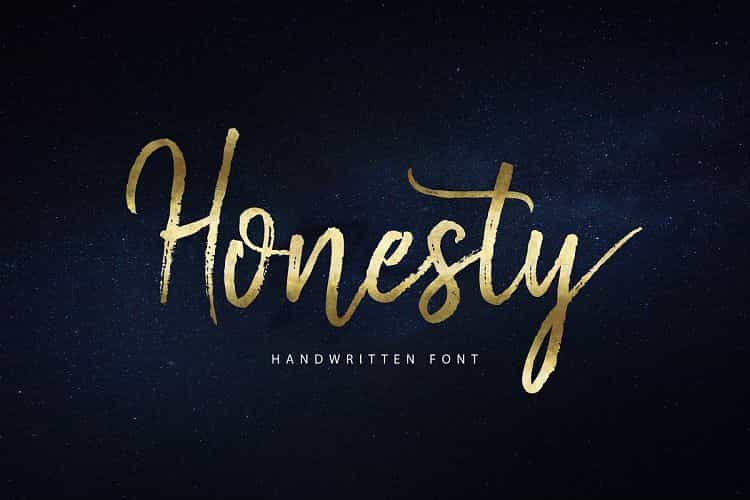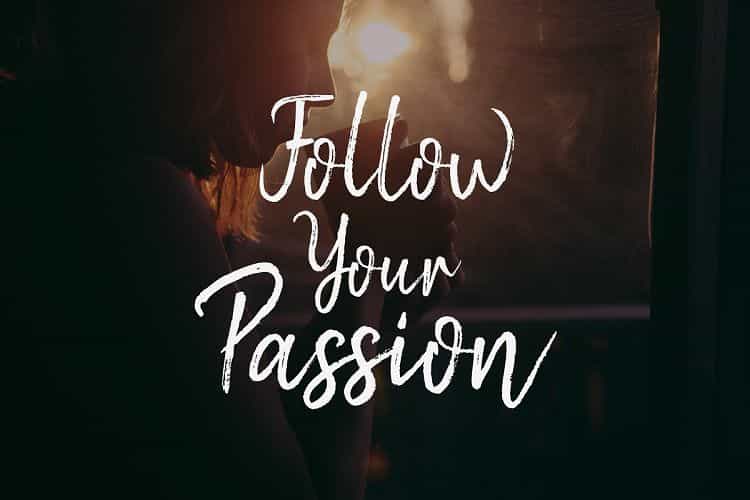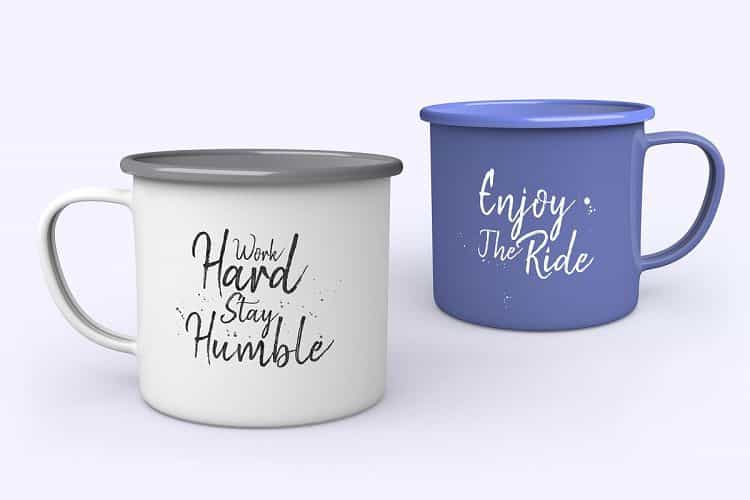
Discover Honesty Script Font, part of the Brush collection—a versatile and unique font perfect for adding a personal touch to your projects. Download it for free and enjoy crafting designs with style, from invitations to social media posts. This font is available exclusively for personal use, giving you the freedom to create without limits. Unlock your creativity with Honesty Script Font today!
Introducing Honesty Font. It is created by Unicode, this is a premium font which could be found on creativemarket but it was still great and today it can be downloaded for free. Honesty Script is a new fresh and natural script font with a handwriting style.